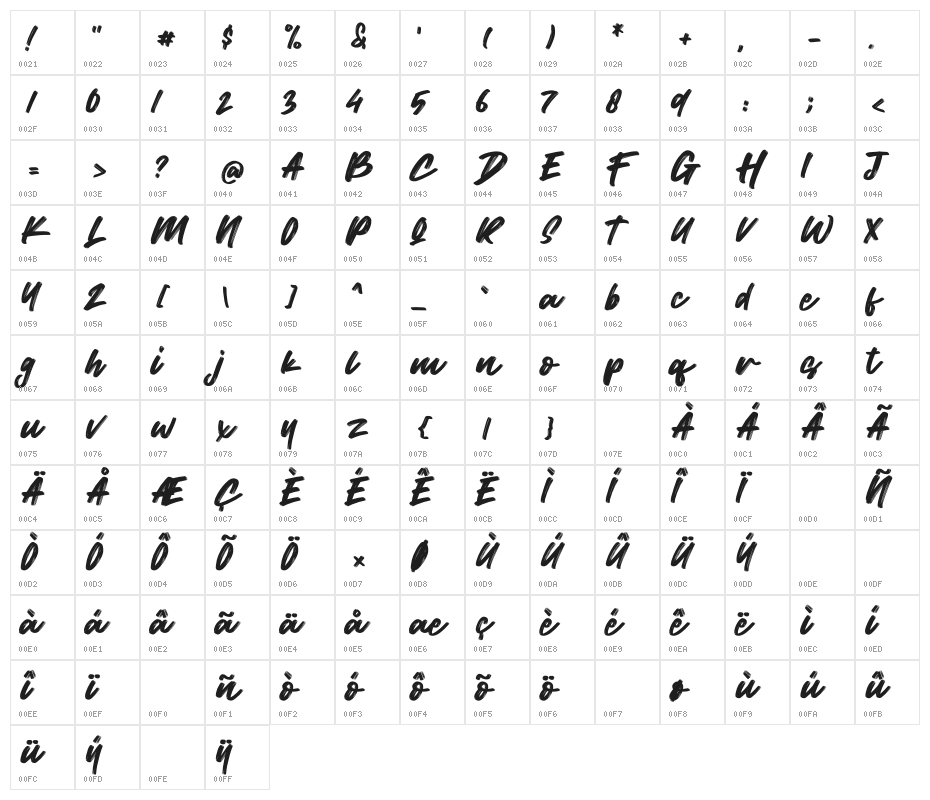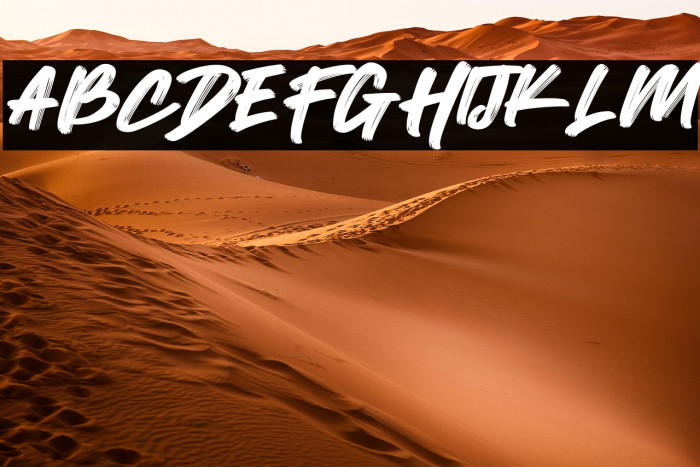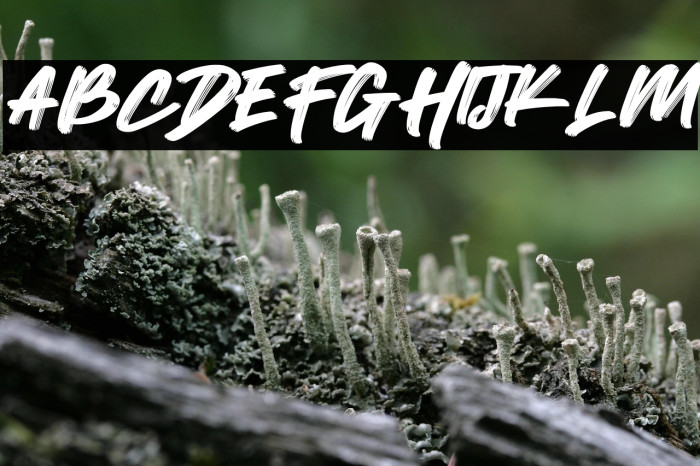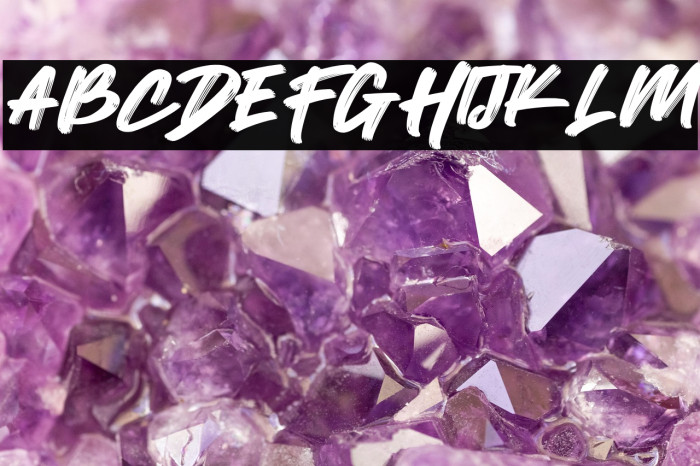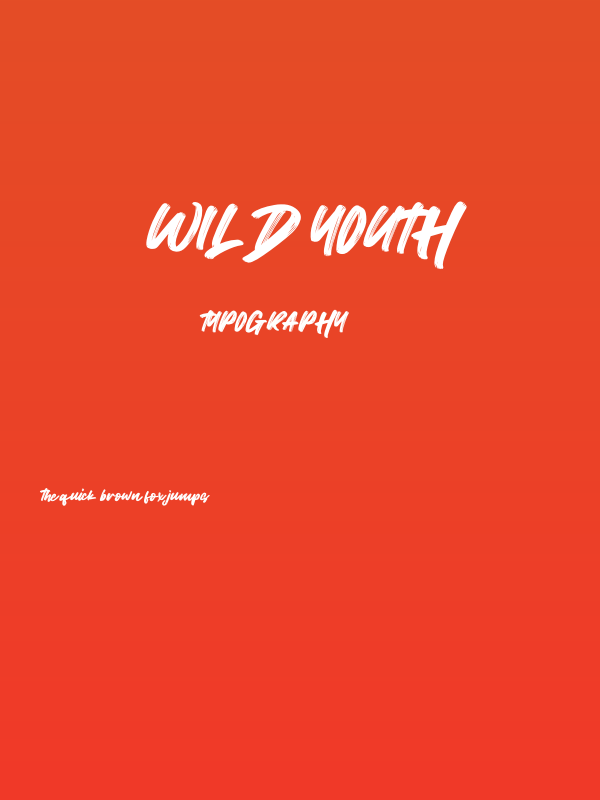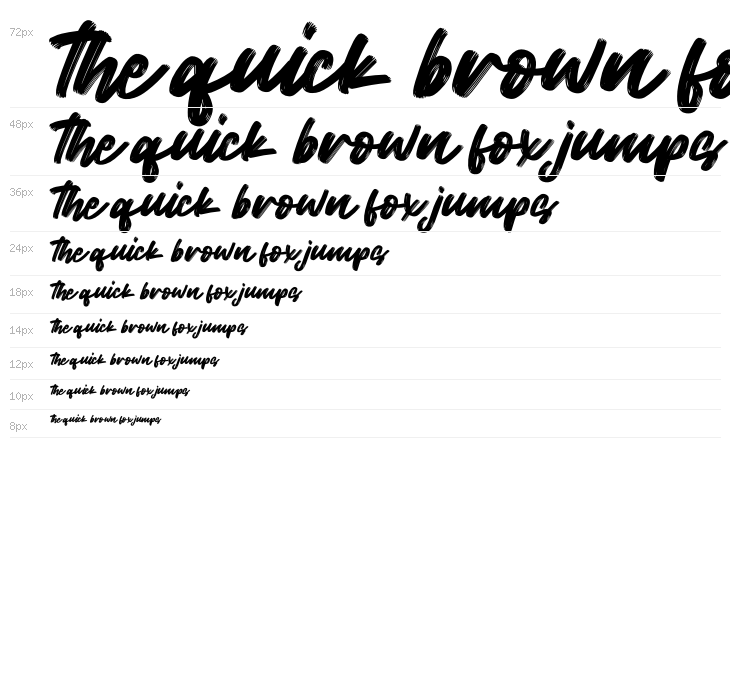
Wild Youth Font
Wild Youth Description
This font exudes a bold and energetic vibe, characterized by its brush-like strokes that give it a dynamic and lively appearance. The letters are crafted with a sense of movement, as if painted with a swift, confident hand. The uppercase and lowercase letters maintain a consistent style, with thick, expressive lines that vary in width, adding to the font's vibrant personality. The numerals and special characters follow suit, ensuring a cohesive look across all elements. This font is perfect for projects that require a touch of creativity and flair, making it ideal for artistic and expressive designs.